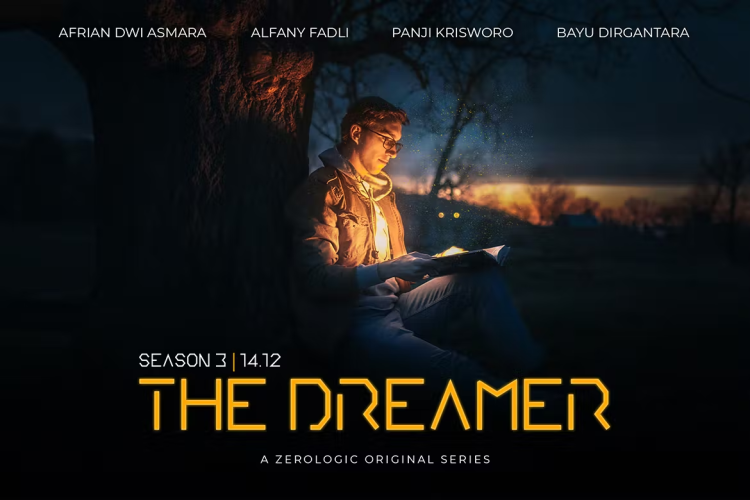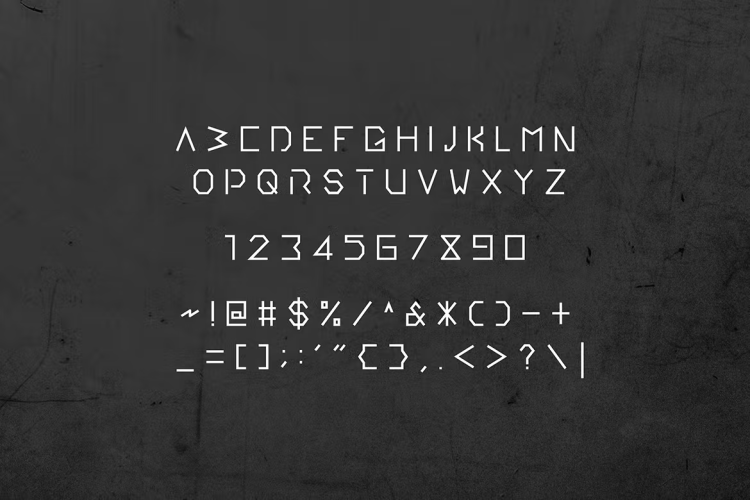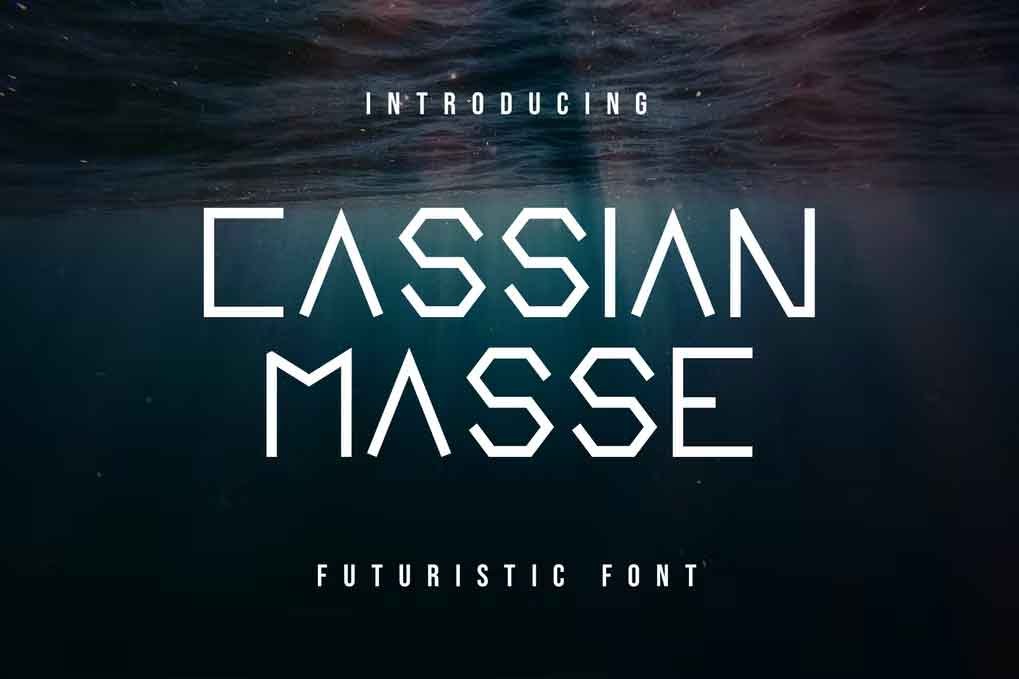
Cassian Masse Futuristic Font
Cassian Masse is a Futuristic font that we designed with original touch for your needs. This cool font is complete with Uppercase, Lowercase, Numeric & symbols. This very strong and sharp font is perfect for titles, typography, posters, magazines, brochures, packaging, Websites and much more for your design needs, making your designs more cool.
Where Cassian Masse Futuristic Font works best
Cassian Masse Futuristic Font stays legible at small sizes, which makes it a strong choice for navigation, buttons and dashboards in web design and app interfaces.
Clean sans serifs like Cassian Masse Futuristic Font are the default language of SaaS, fintech and product branding.
What is Cassian Masse Futuristic Font good for?
Cassian Masse Futuristic Font is a Sans Serif Fonts typeface tagged Editorial, Packaging, Poster, Professional. It works well for headlines, logos, posters, social media graphics and branding projects that need a distinctive sans serif fonts look.